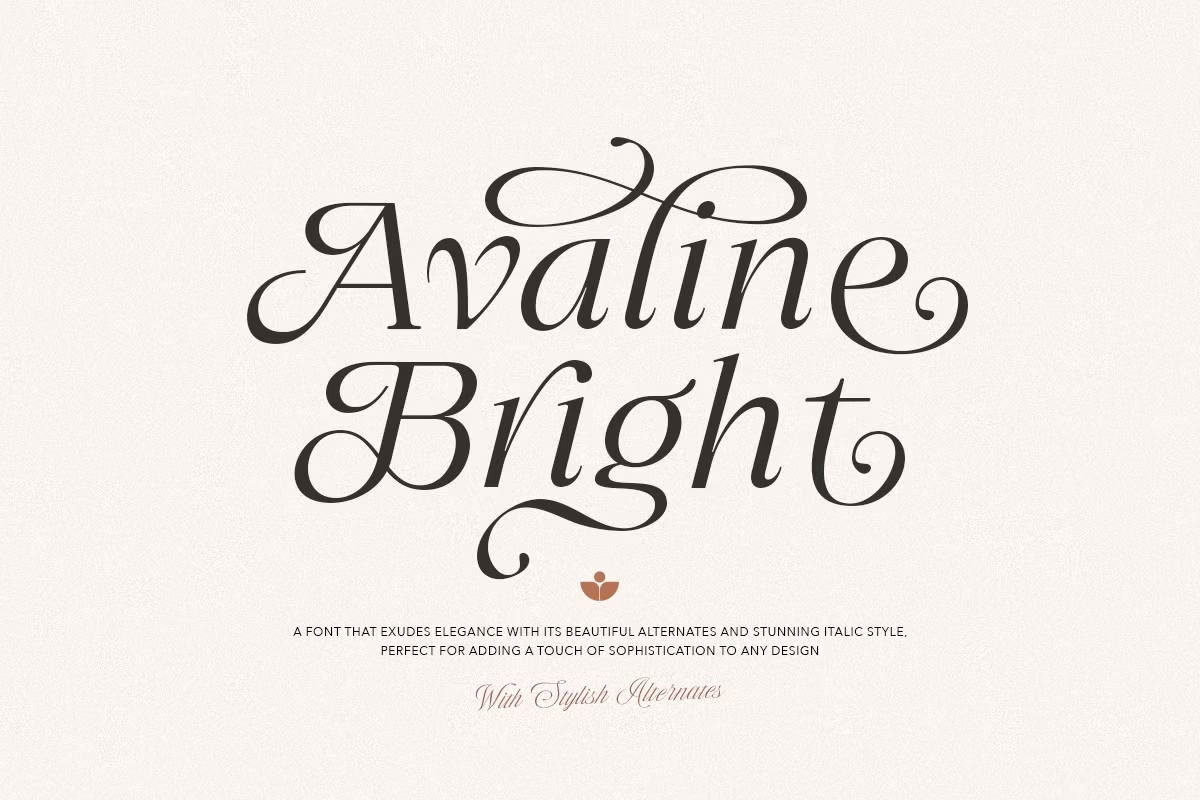
The Avaline Bright - Luxury Italic Font Free Download is an elegant and refined typeface designed with sophistication and class in mind. Perfect for luxury branding, high-end editorial layouts, wedding invitations, and upscale product packaging, this font exudes a sense of timeless beauty and grace.
With its sleek italicized style and finely crafted letterforms, Avaline Bright brings a touch of exclusivity to any project. It includes uppercase and lowercase letters, numbers, punctuation, and multilingual support, making it versatile for a variety of professional and creative applications.